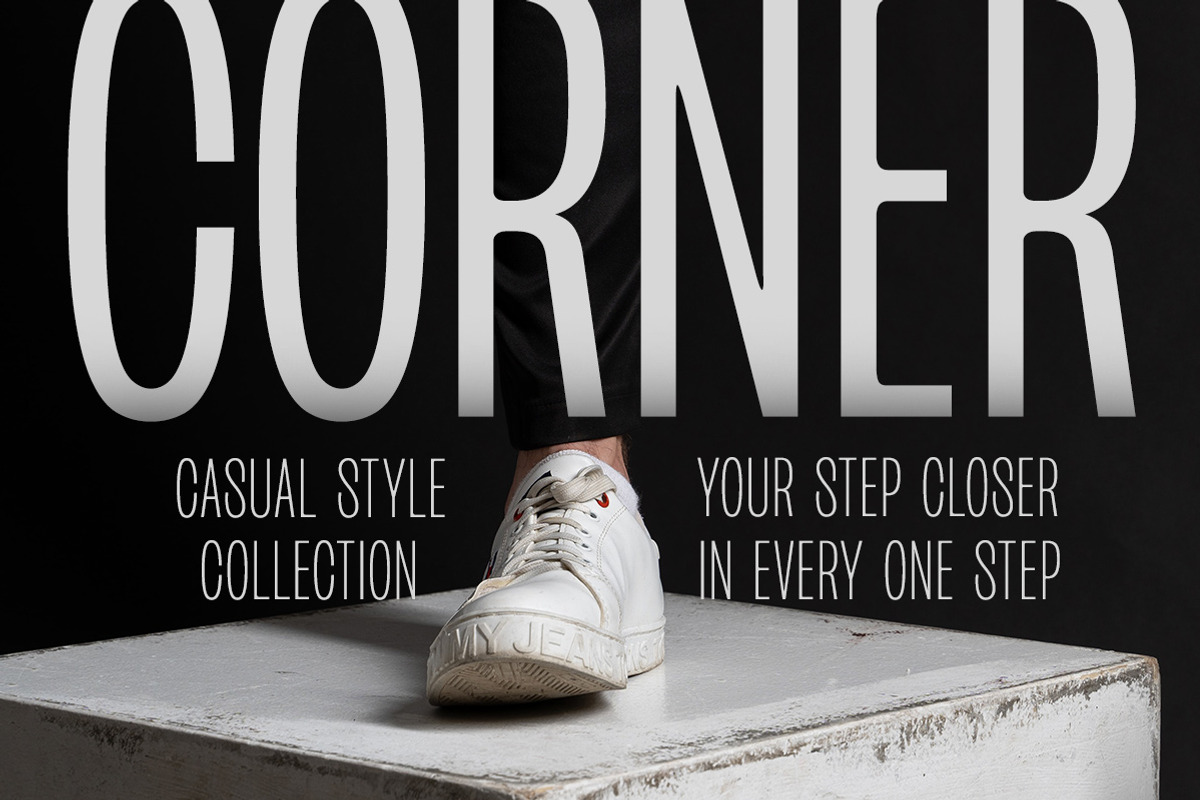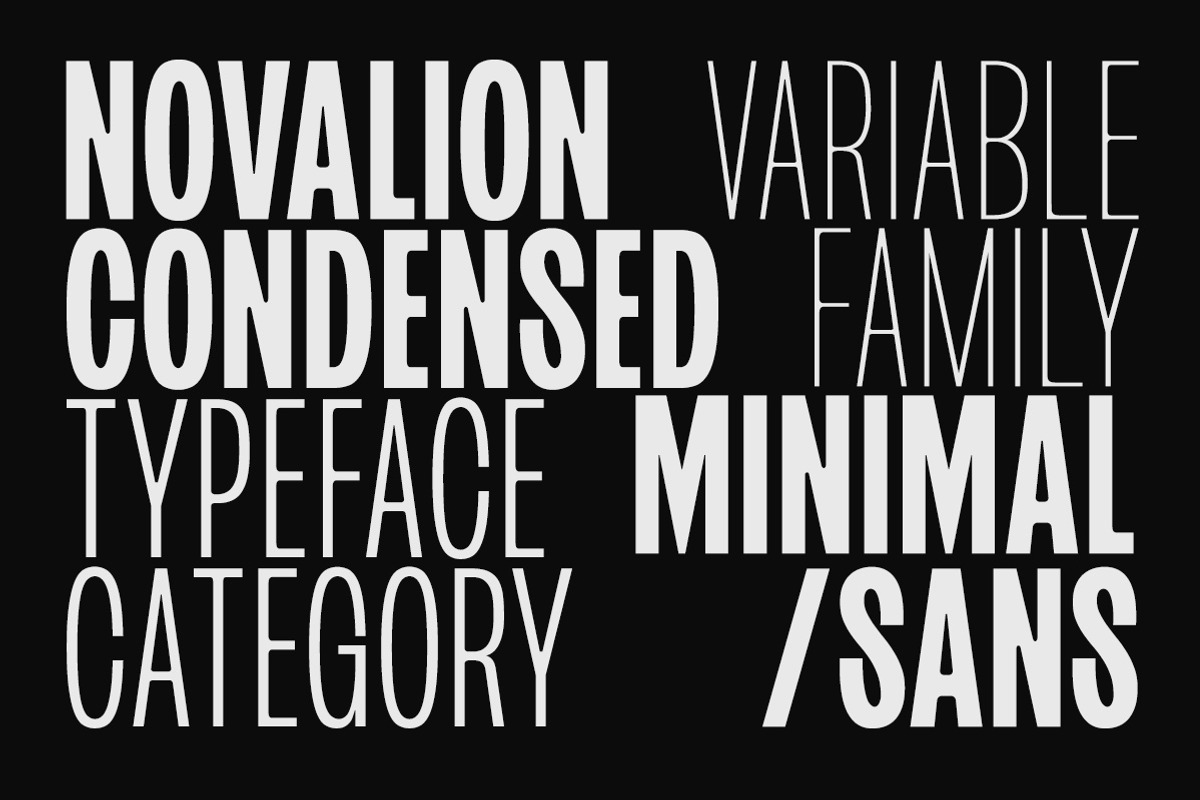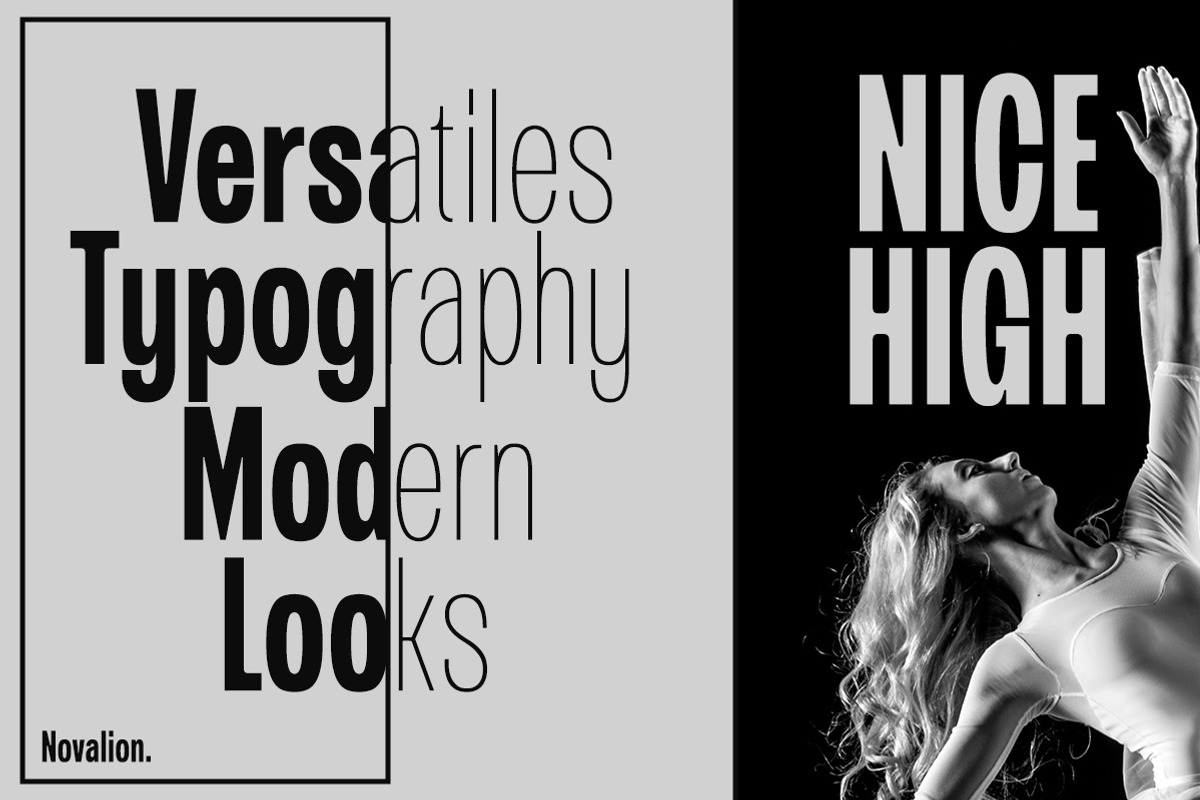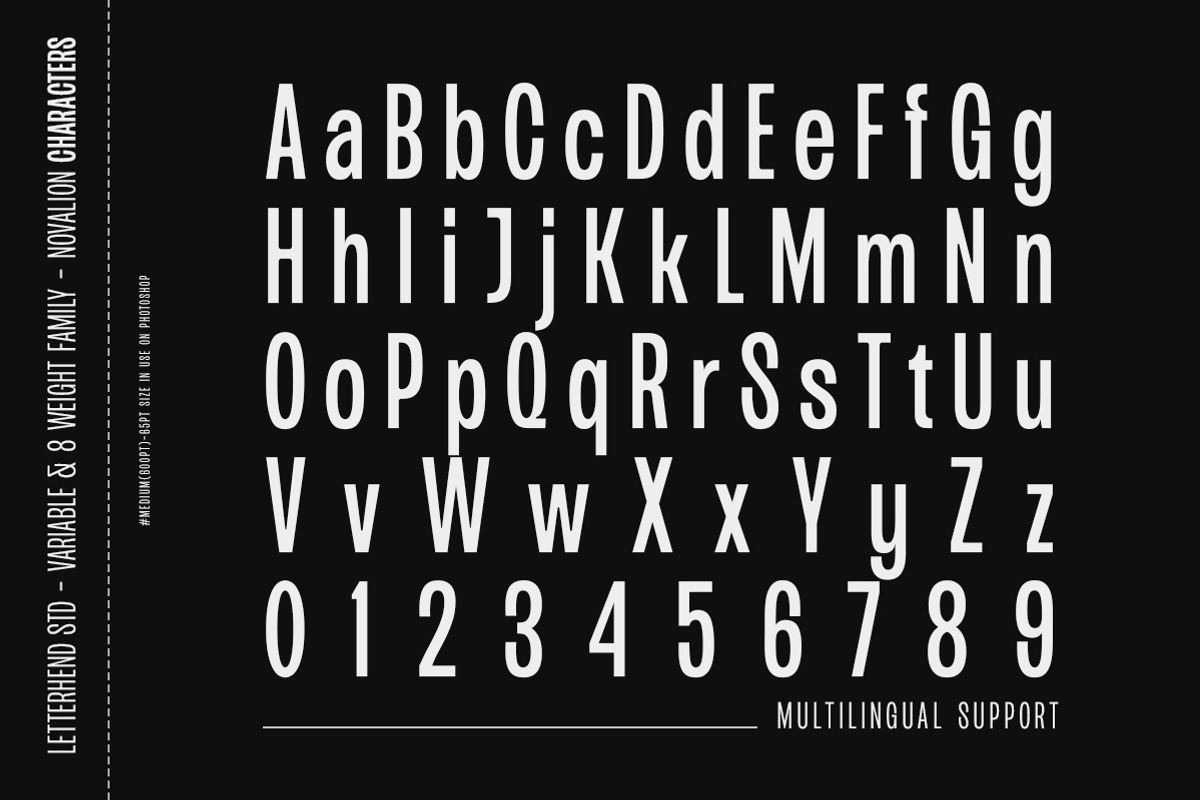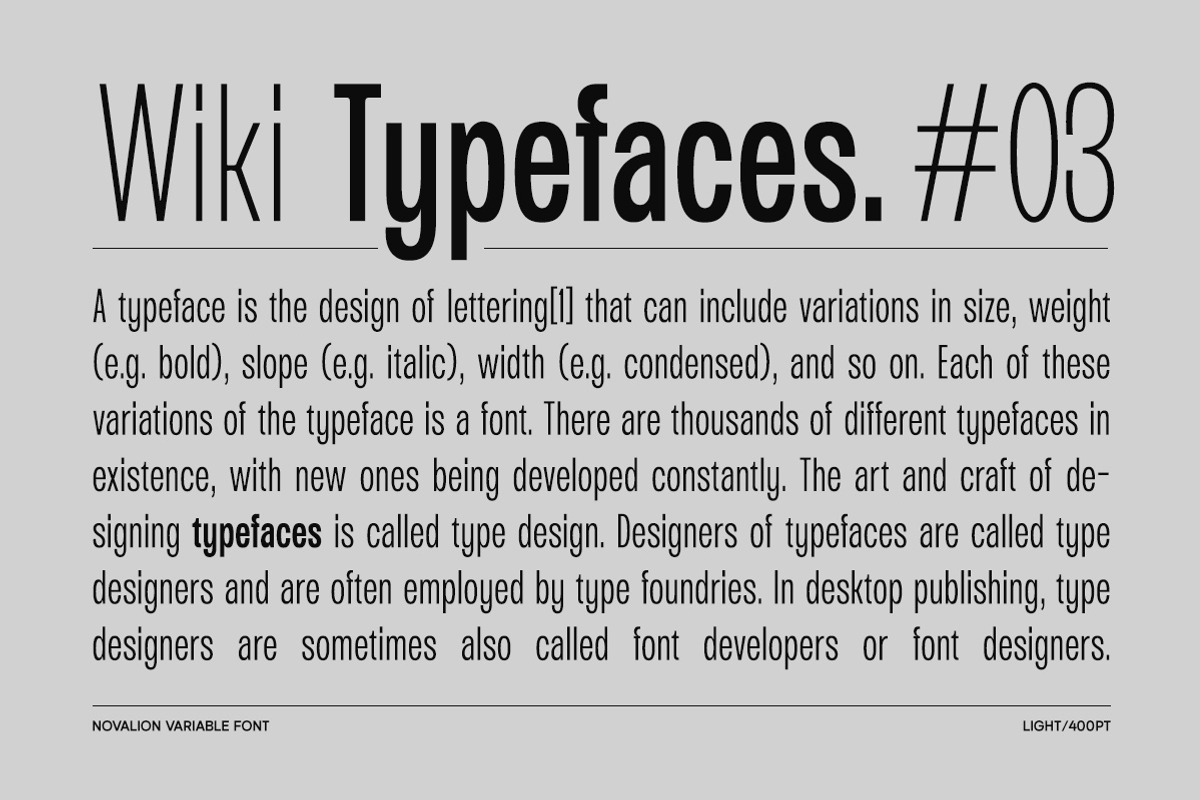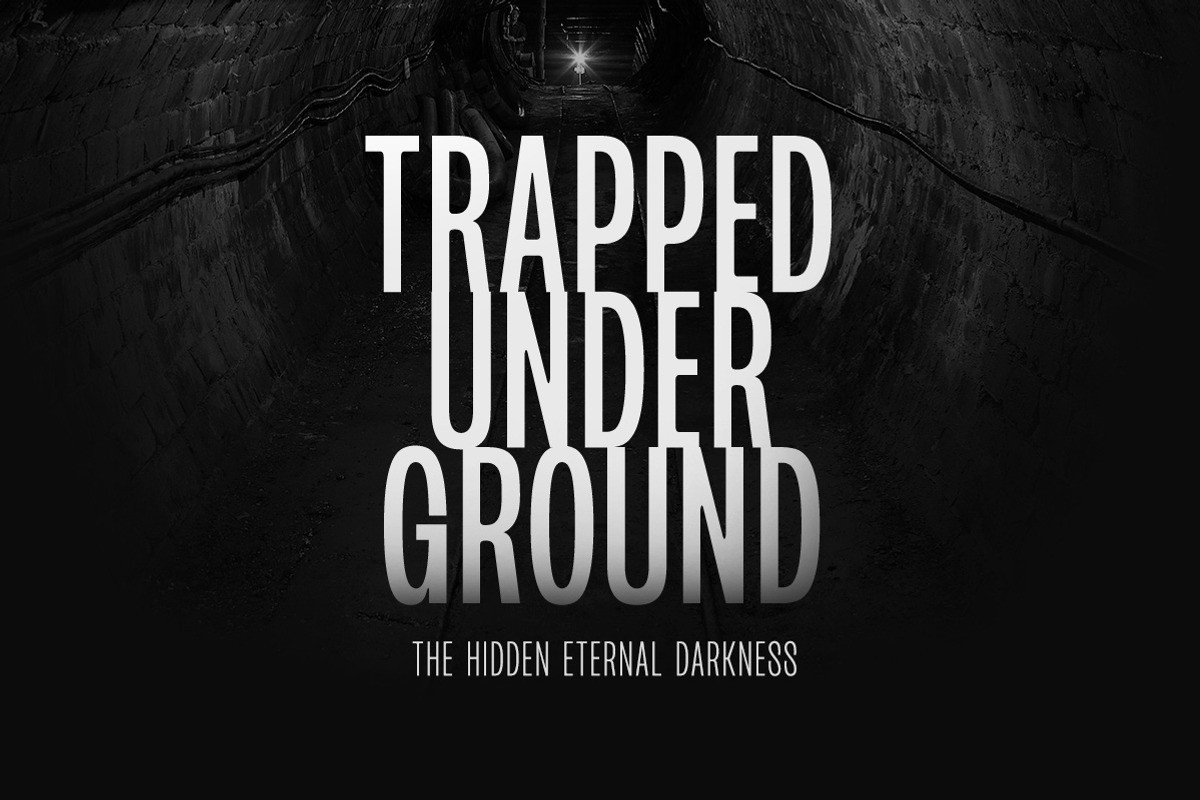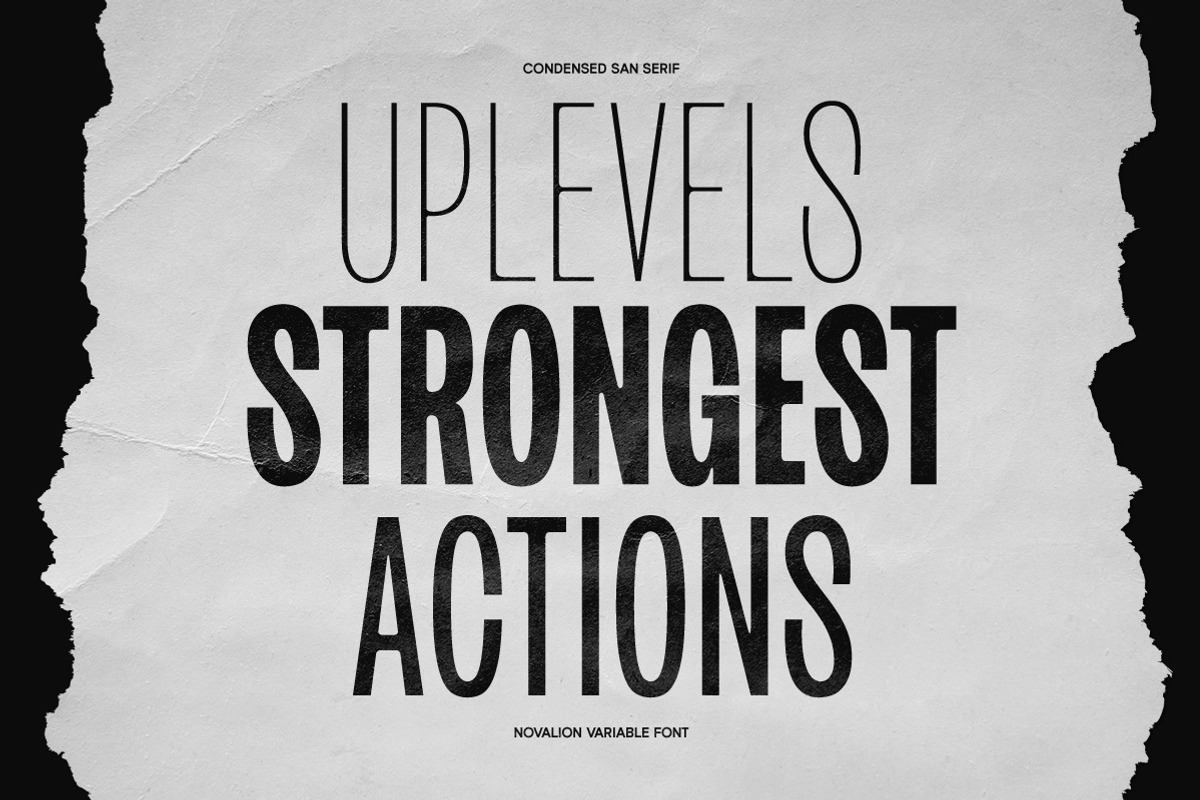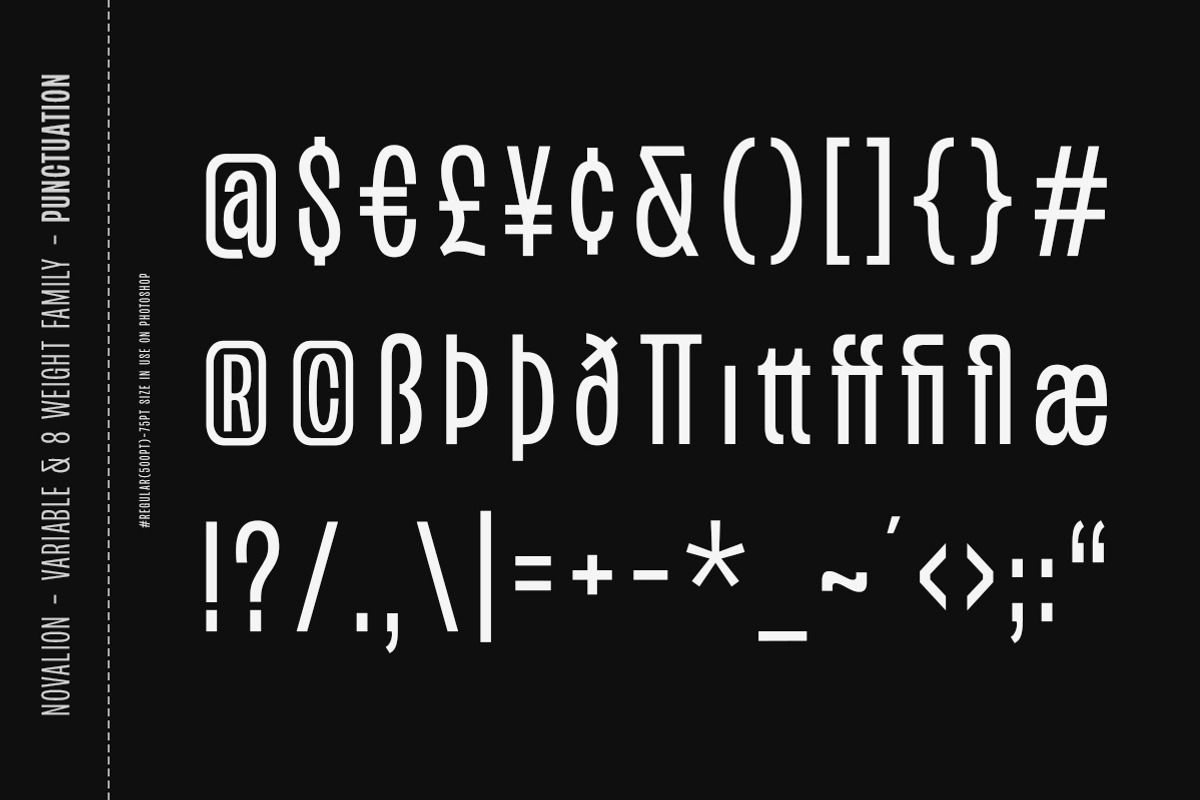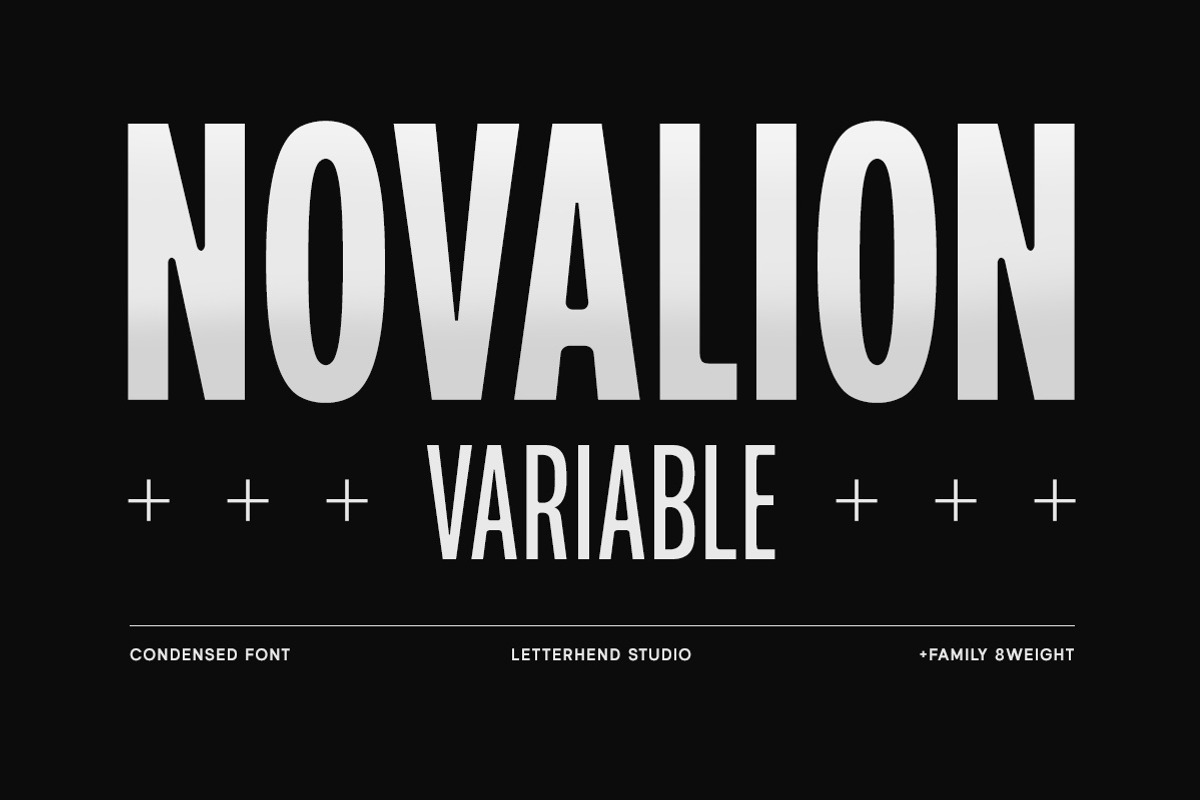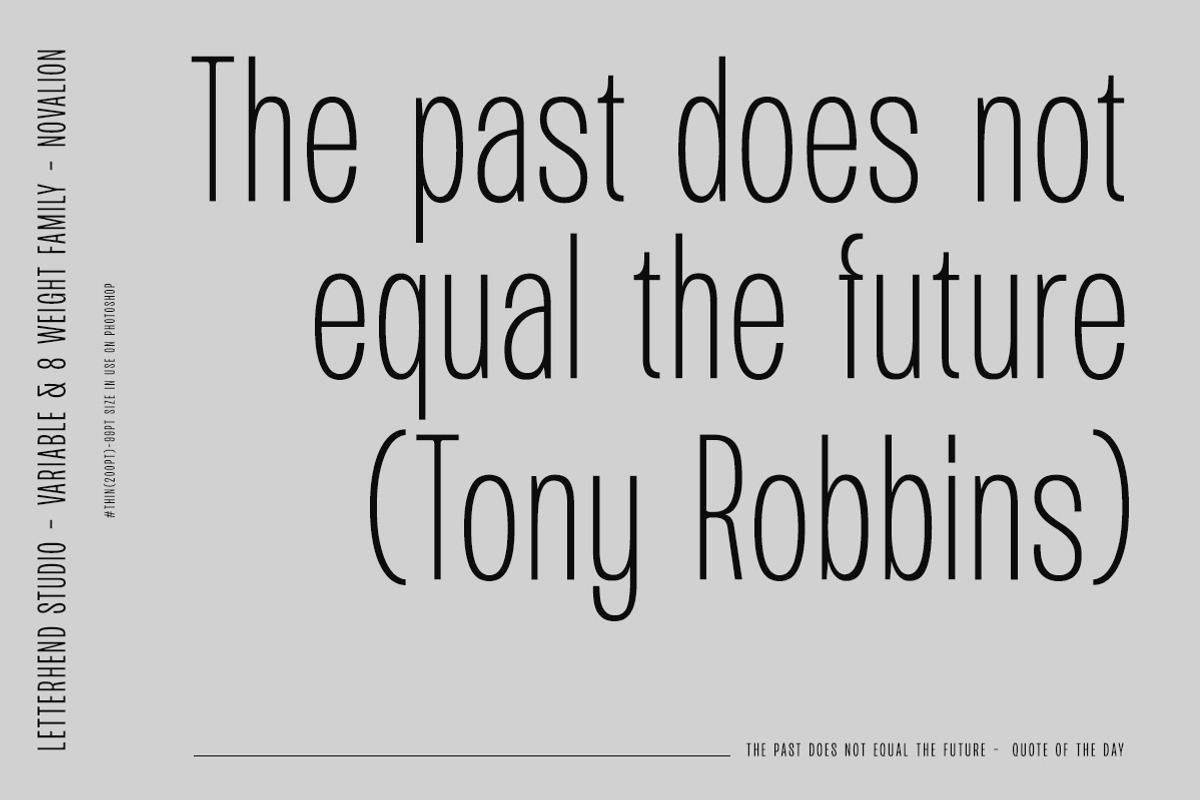
Novalion - Condensed Variable Font
Novalion s a condensed variable sans serif font with with many weight you can choose. It has 8 weight styles which you can play around to match your project, whether for a standout headline, or for a tagline, you name it. Perfect to be applied to the other various formal forms such as invitations, labels, logos, magazines, books, greeting / wedding cards, packaging, fashion, make up, stationery, novels, labels or any type of advertising purpose.
- variable font with 8 weight style